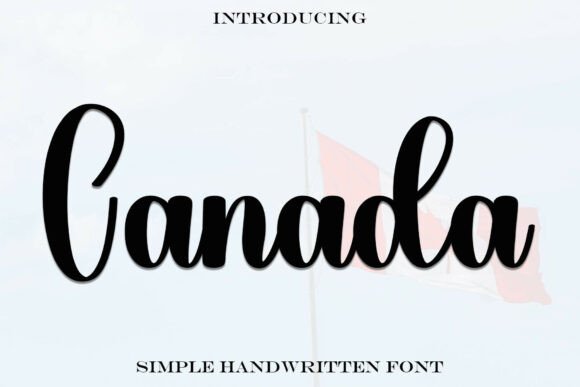
I still remember the design project that led me to discover the stunning Canada Font. I was working on a branding project for a luxury client, and I was struggling to find the perfect font that exuded elegance and sophistication. The client wanted a font that was both modern and timeless, with a touch of classic calligraphy. After hours of scouring font libraries and testing various options, I stumbled upon Canada Font. It was love at first sight! 💫
A Personal Review of Canada Font
What I Love About Canada Font
- ✨ Trendy yet timeless: Canada Font has a contemporary atmosphere that feels fresh and modern, while also being inspired by classic calligraphy.
- ✅ Impeccable form: The font has a polished, refined look that adds elegance and class to any design project.
- 💫 Versatile: Canada Font works beautifully for both digital and print projects, from logos and branding to invitations and stationery.
While Canada Font is an amazing font, there are a few things to keep in mind: 🤔
- ⚠️ Limited language support: Canada Font may not support all languages, so be sure to check the font’s specifications before using it for a project.
- ⚠️ Not suitable for body text: Due to its elegant, cursive nature, Canada Font is best used for headlines, titles, and short paragraphs, rather than long blocks of body text.
- Experiment with OpenType features, such as Stylistic Alternates and Glyphs, to add more flair to your design.
- Explore OpenType features, such as Swashes and Ligatures, to add more personality to your design.
The Backstory of Canada Font
While I couldn’t find any information on the exact design process behind Canada Font, I like to imagine that it was created by a team of designers who wanted to craft a font that embodied the perfect blend of modernity and timelessness. Perhaps they drew inspiration from classic calligraphy and infused it with a contemporary twist. Whatever the story, Canada Font is undoubtedly a stunning addition to any design project.
Q: What is Canada Font?
A: Canada Font is a trendy, handwritten font with a contemporary atmosphere and impeccable form, inspired by timeless classic calligraphy.
Q: What is Canada Font best used for?
A: Canada Font is best used for headlines, titles, and short paragraphs in design projects that require elegance and sophistication.